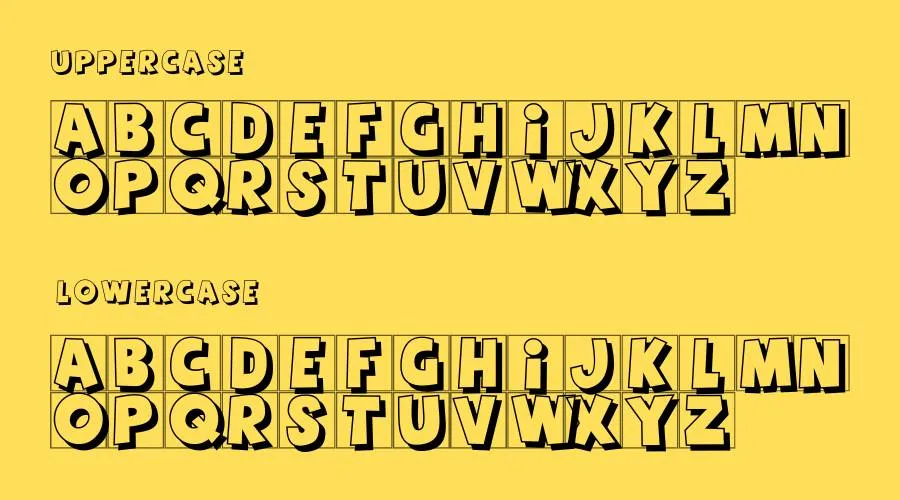
About Toy Story Font
Toy Story Font is designed by Eric Gill. Basically, it is a logo font for the famous American movie directed by Walt Disney Pictures.
Among its many alternatives, the circus font is the most suitable replacement for this pleasant typeface. The unique glyphs of this font can be utilized to make incredible new form designs. The characters in this font have a unique appearance, making it a beautiful typeface.